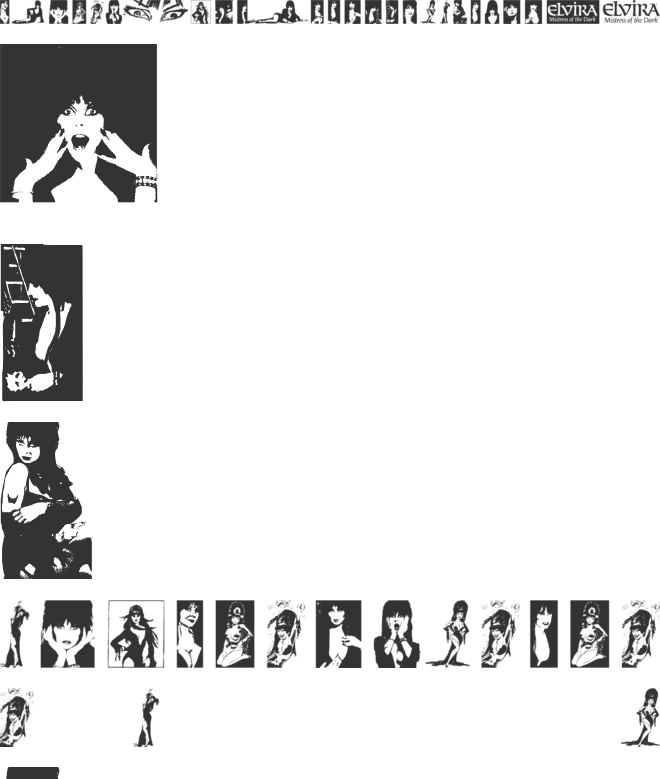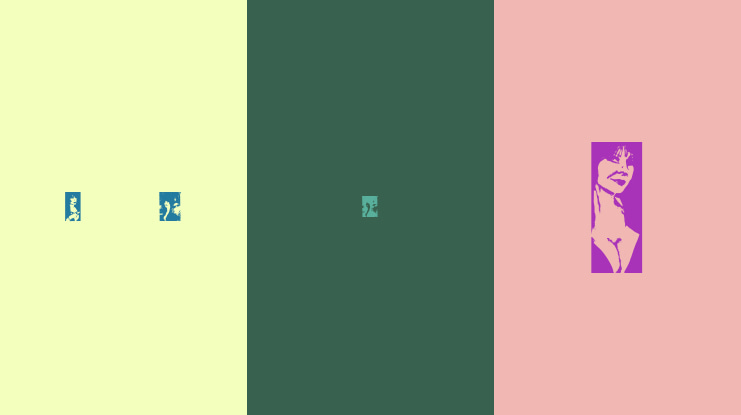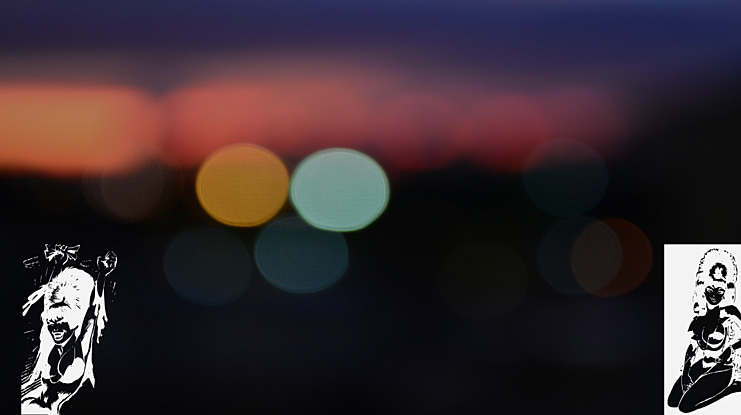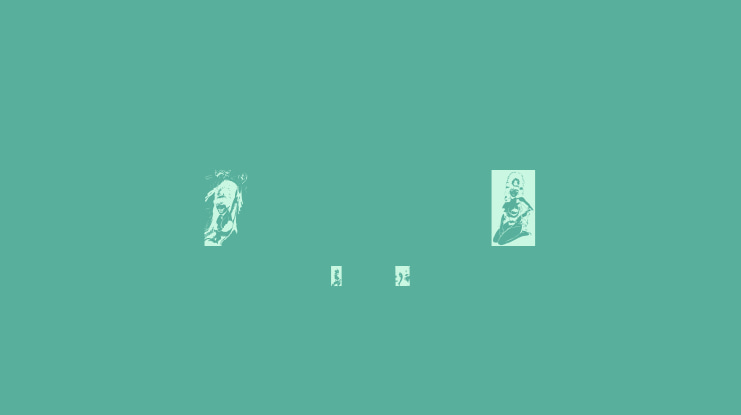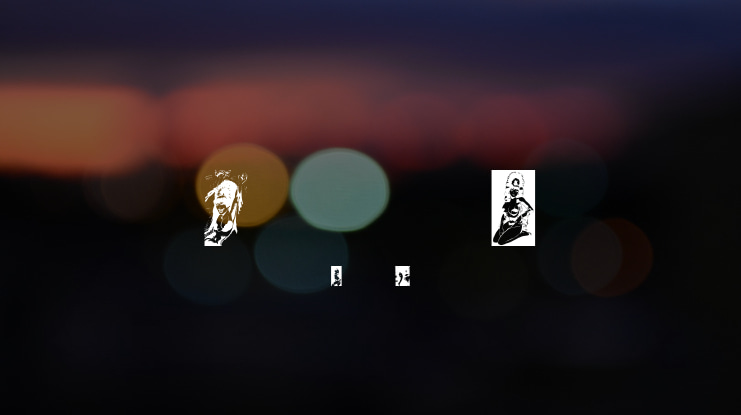
Elvira Dingbats Font
The loveliest proto-minion ever to grace the world of macabre entertainment, Elvira has been a favorite of Your Emperor since he was just a wee little minion himself...and so it is with great pleasure that we are able to bring you, at last, a fitting alphabetalogical testimony to the Mistress of the Dark's bounteous beauty, malevelant majesty, and sense of humor.